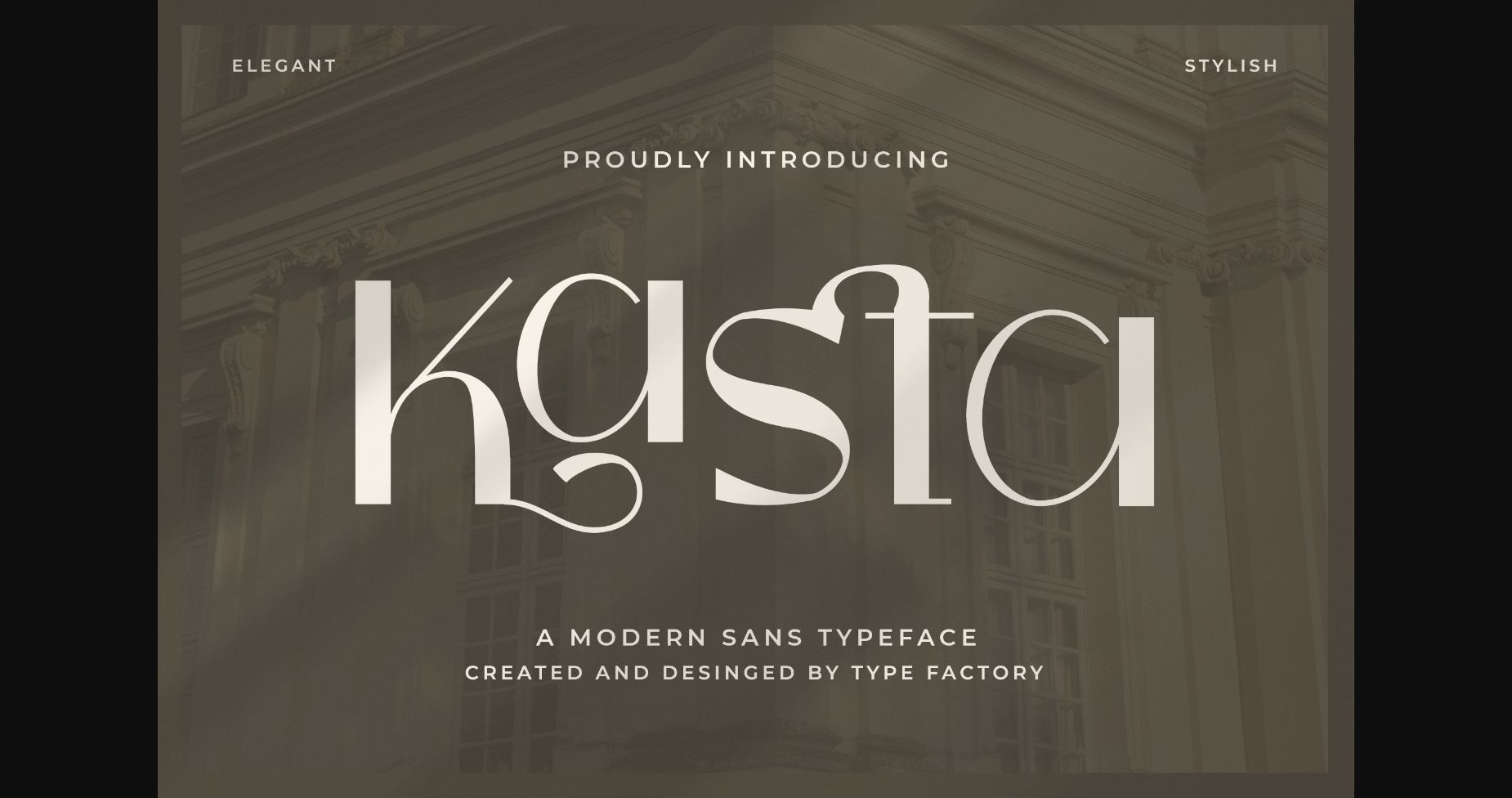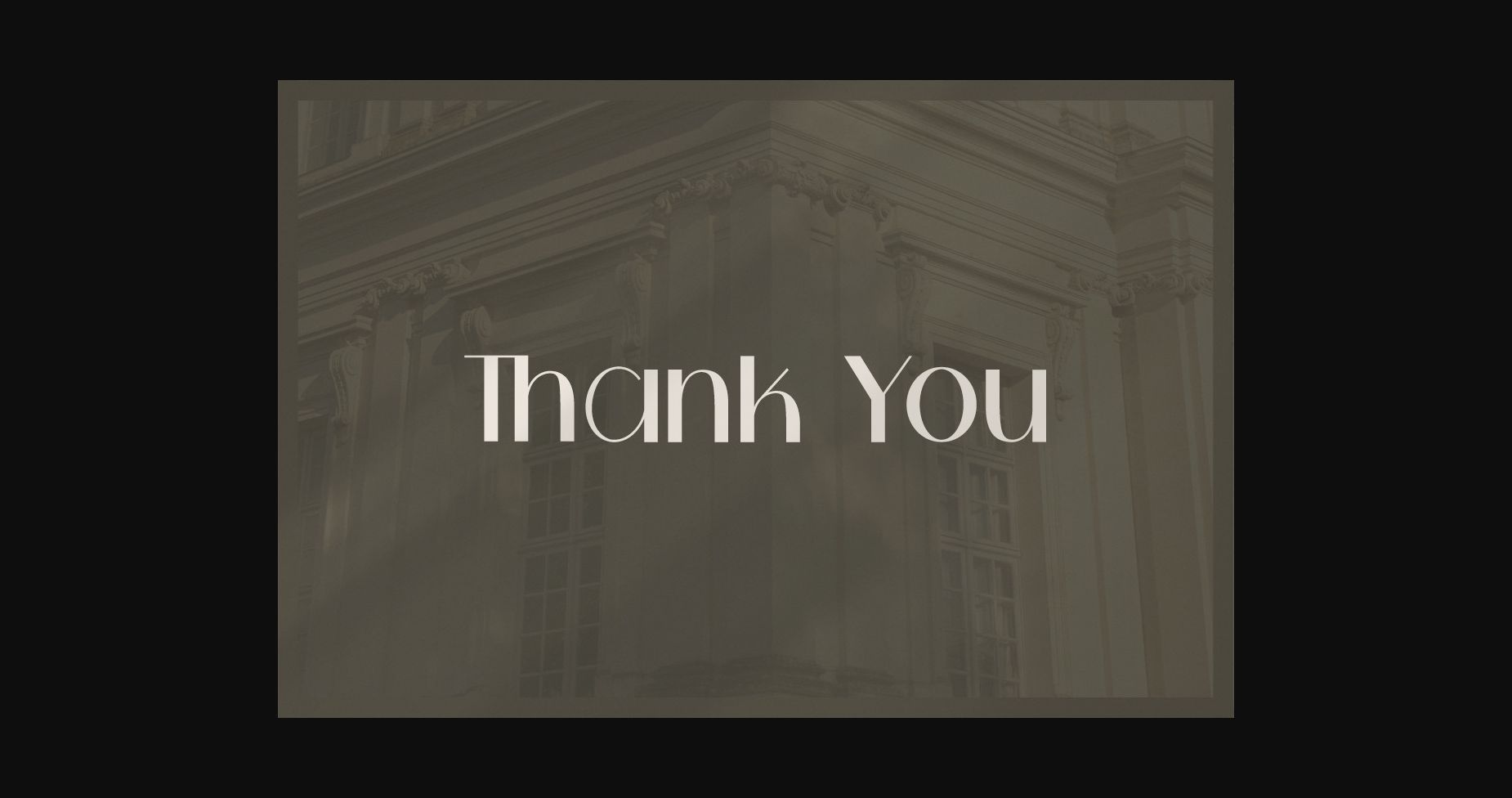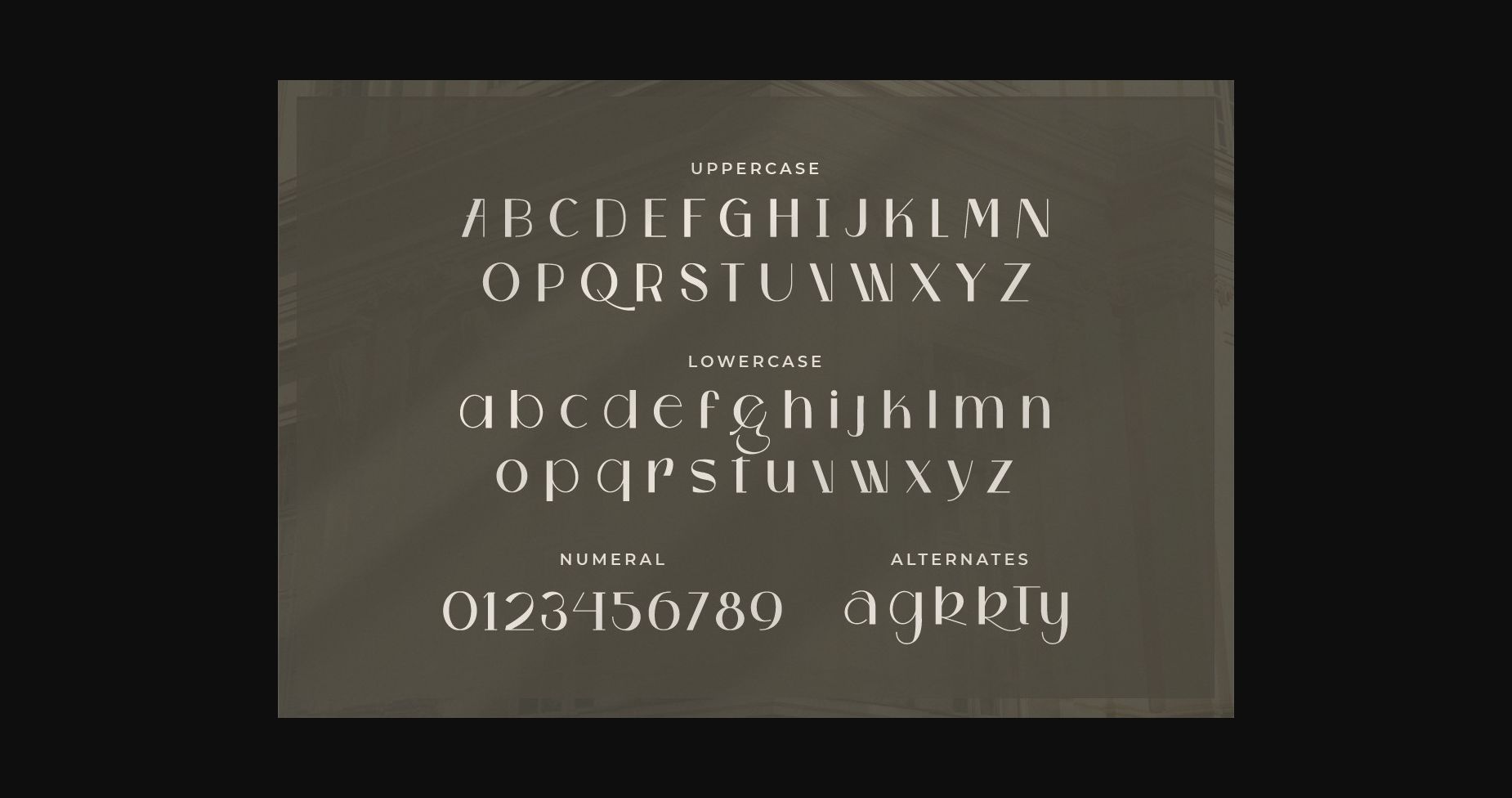
About Kasta Font
Kasta is an elegant and modern sans serif font.
No matter the topic, this font will be an incredible asset to your fonts’ library, as it has the potential to elevate any creation.